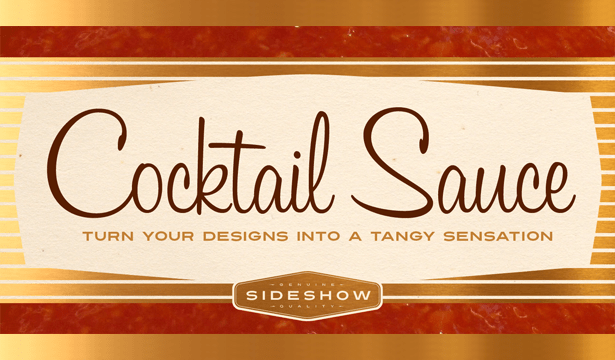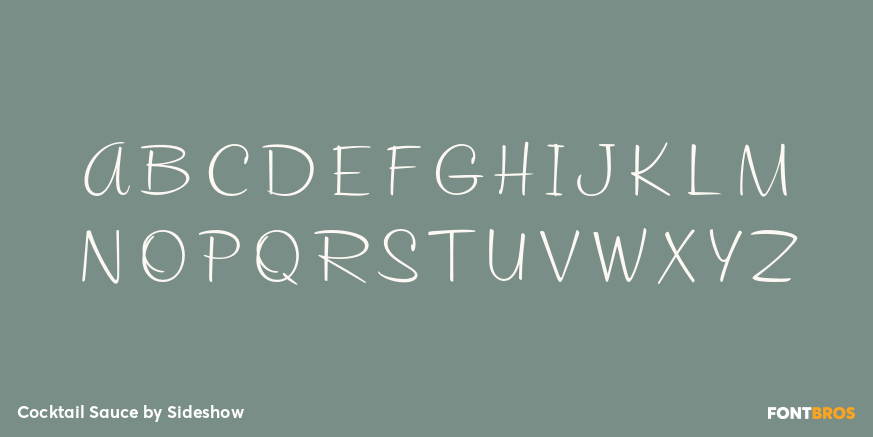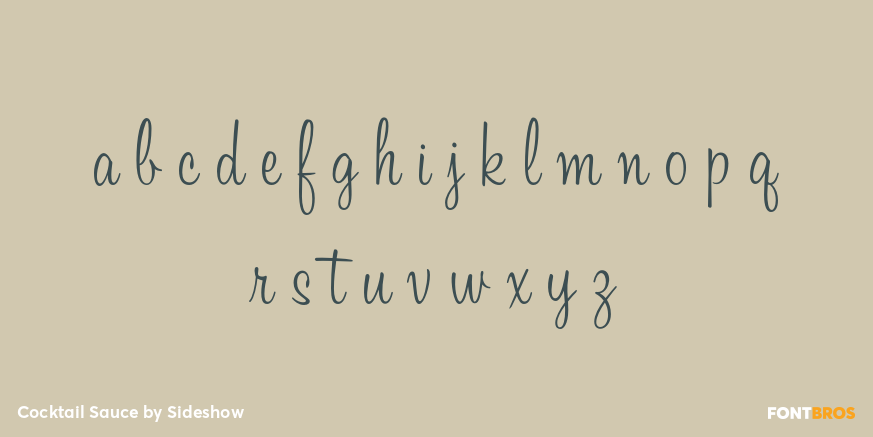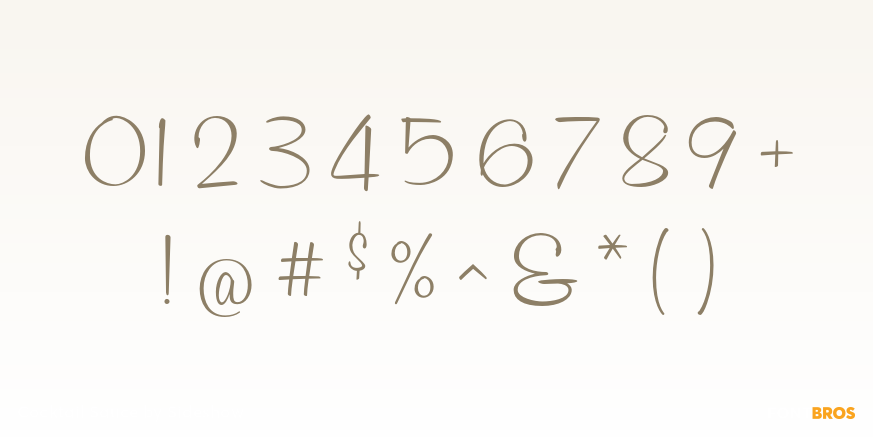
Cocktail Sauce
Font Family by Sideshow
Buy NowSpice up your designs with Cocktail Sauce! This tasty handwritten script is loaded with OpenType magic that gets your designs dancing with tangy sparkling flavor! Inspired by brushscript hand lettering of the 1950s, this casual upright script will turn you into an instant lettering artist with smooth flowing connections and a full compliment of international characters! Make Cocktail Sauce your NEW secret sauce!